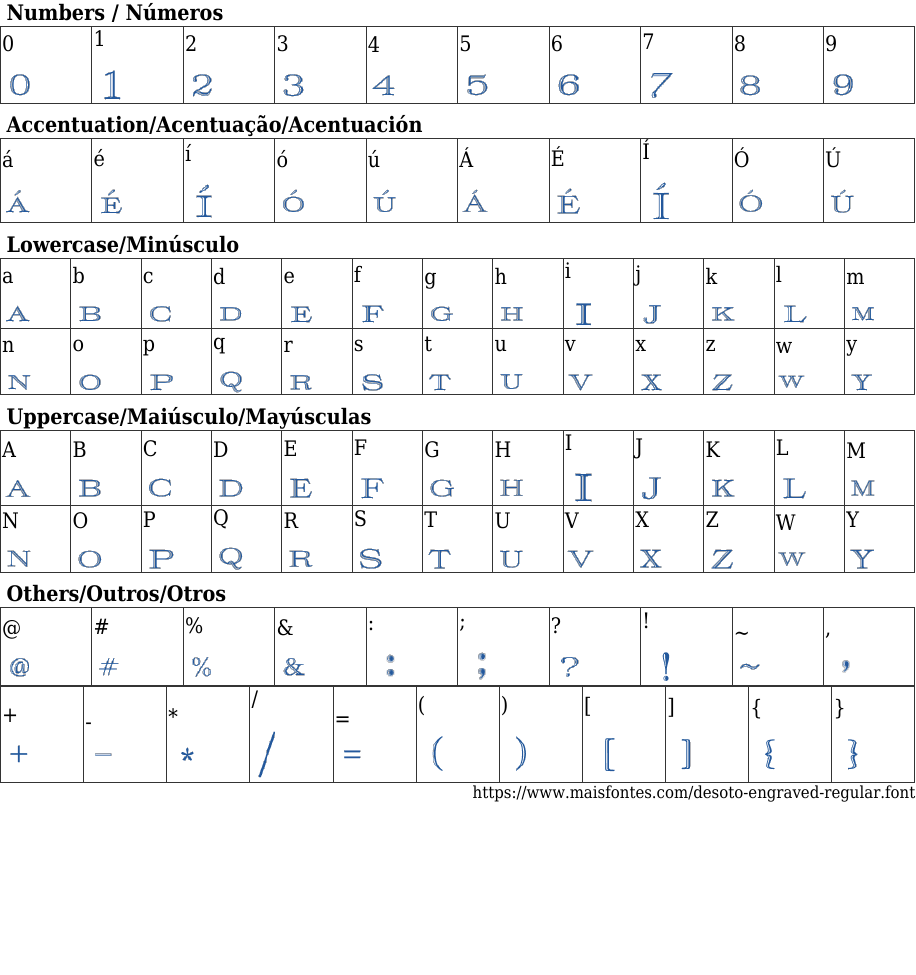
De Soto Engraved Font Free Download ️ this font has been downloaded 5,000+ times. Desoto contains 4 styles and family package options. You can use the desoto engraved regular to create interesting designs, covers, shop and store name. Its name and inspiration come from a few letters in a 1958. Desoto font family was designed by stephen w. Thousands of designers (famous or not) use the image font detection system to find a font or similar free fonts from an image. ️ this font has been downloaded 5,000+ times. Rapp and published by stephen rapp. Thousands of designers (famous or not) use the image font detection system to find a font or similar free fonts from an image. Warm and inviting— desoto is a titling face sure to add a touch of grace to many projects. De soto w00 engraved download is available free from 8font.com. De soto w00 engraved fonts free downloads download formats ttf web svg eot woff woff2 otf pfa bin pt3 ps cff t42 t11 dfont none download version : Although we have the largest database of fonts, the. Download and install the desoto font for free from ffonts.net.